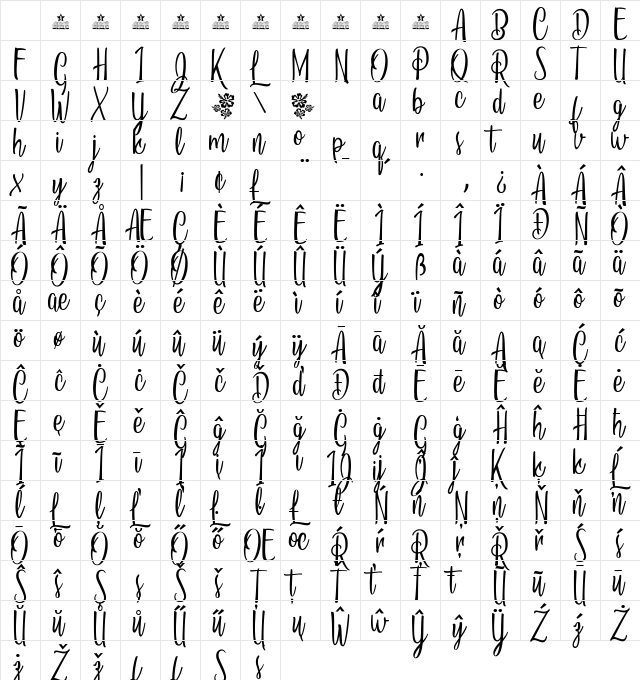
Complete Vacations in Paradise Personal Regular glyph index. Displaying only characters natively supported by Vacations in Paradise Personal Regular font.
Vacations in Paradise Personal is a composed and adaptable typeface that performs quietly and consistently across a wide range of design contexts.